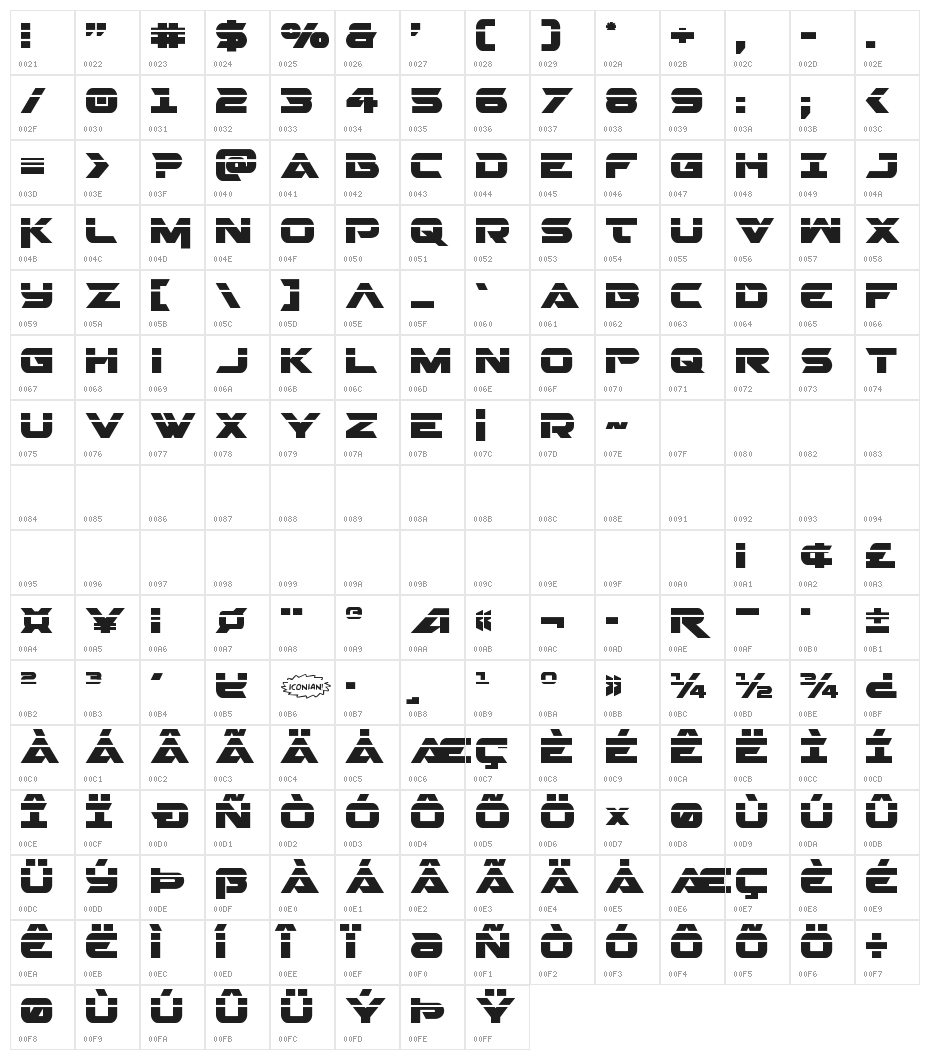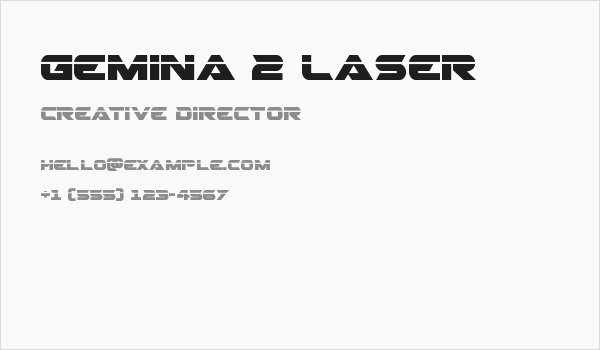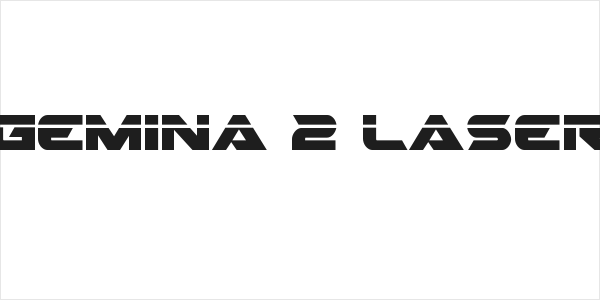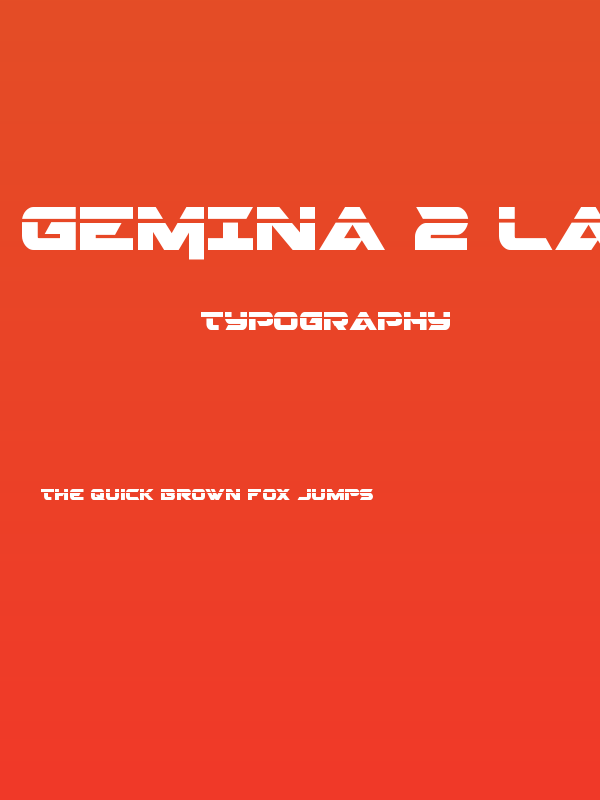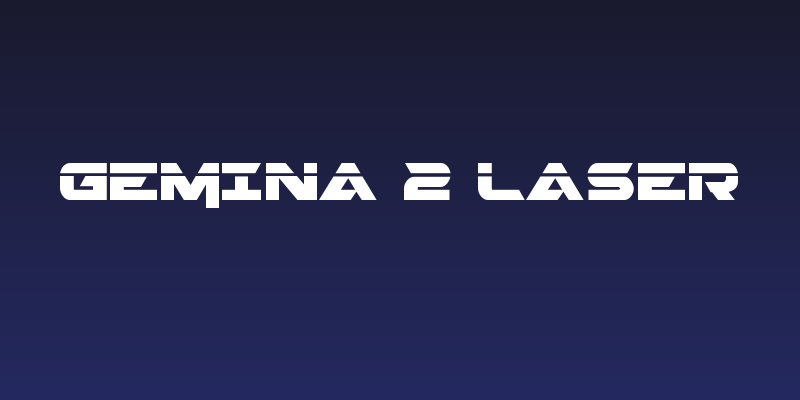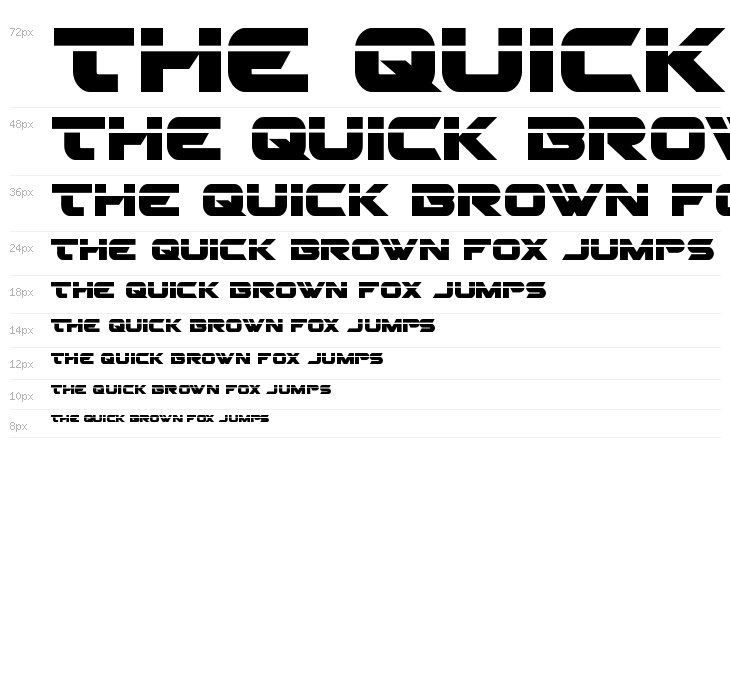
Gemina 2 Laser Font
Gemina 2 Laser Description
This font features a bold, futuristic design with geometric shapes and sharp angles. The characters are constructed with a stencil-like appearance, creating a sense of movement and modernity. The uppercase and lowercase letters maintain a consistent style, with a strong emphasis on horizontal and vertical lines. The numbers and special characters follow the same aesthetic, ensuring uniformity across all elements. The font's design is striking and attention-grabbing, making it ideal for projects that require a modern and edgy look.
| Proposed Projects | Ideal for sci-fi themed designs, technology branding, video game titles, and modern posters. |